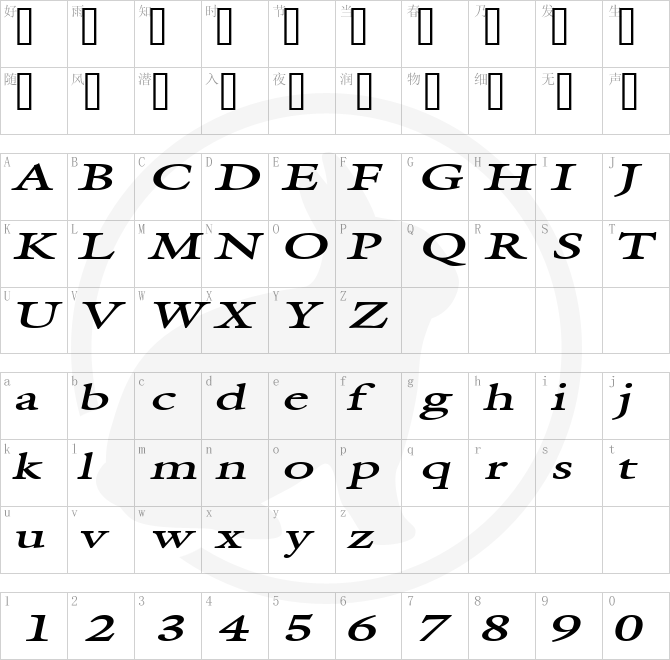
- Font Name:Galant Extended
Galant-Extended-BoldItalic.ttf is a very beautiful artistic font, Galant-Extended-BoldItalic.ttf is widely used in the design and printing of various books and pictures,Galant-Extended-BoldItalic.ttf has a strong visual impact,Galant-Extended-BoldItalic.ttf is a commonly used font in newspapers, magazines and books, and is used in posters, e-commerce Poster design, store design, logo design, font design and other fields.Galant-Extended-BoldItalic.